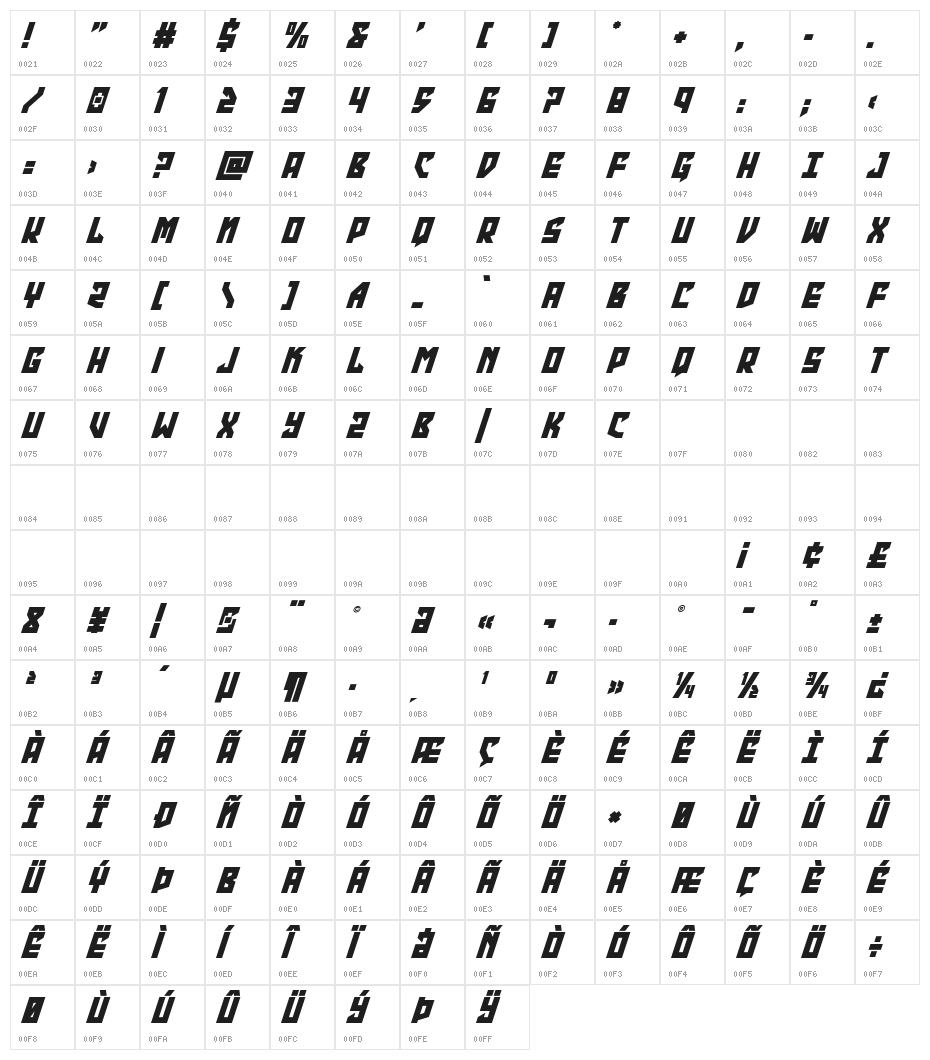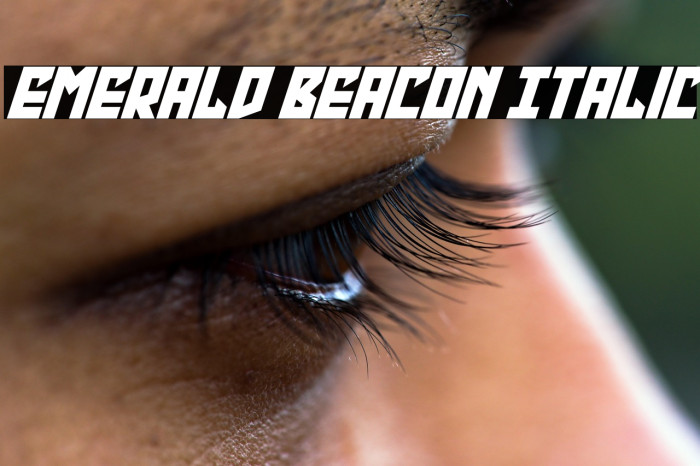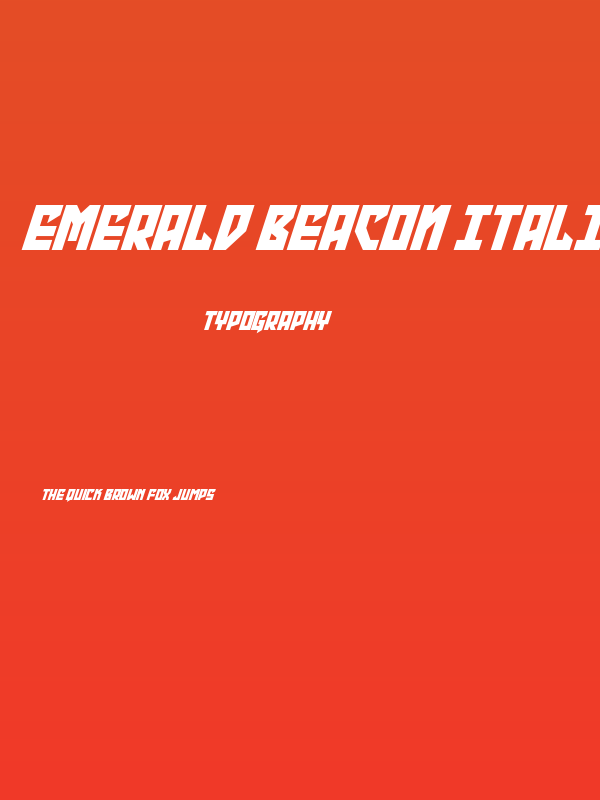
Emerald Beacon Italic Font
Emerald Beacon Italic Description
This font features a bold and dynamic design with sharp, angular edges that convey a sense of energy and movement. The italicized style enhances its forward-leaning appearance, making it ideal for attention-grabbing headlines. The characters are tightly spaced, contributing to its compact and impactful look. The font's geometric shapes and thick strokes provide a high contrast, ensuring excellent readability even at smaller sizes. Its modern and edgy aesthetic makes it suitable for projects that require a strong visual impact.
| Proposed Projects | Ideal for sports branding, dynamic posters, video game titles, and edgy advertising campaigns. |